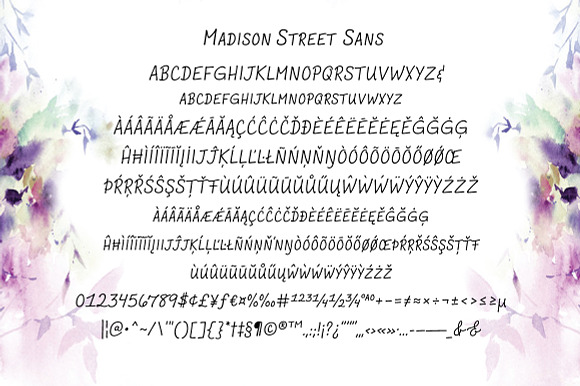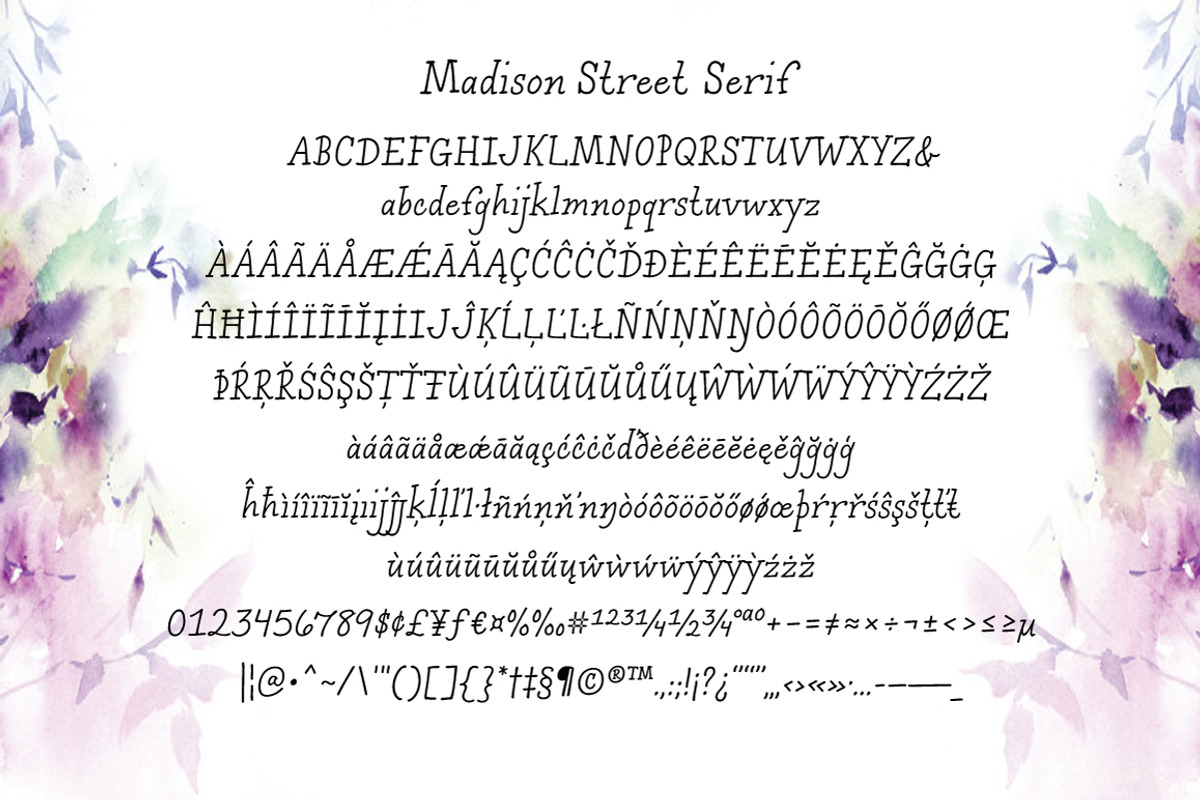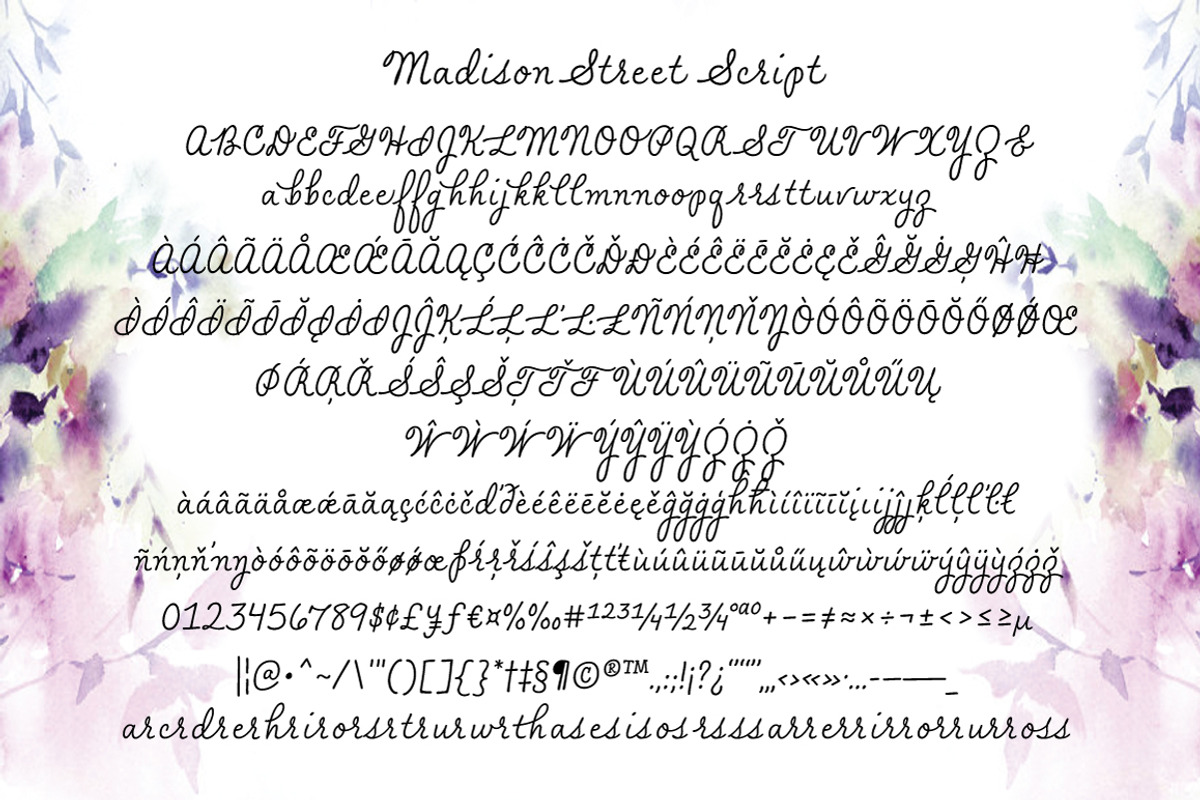
Madison Street Text Fonts
The Madison Street Text Fonts offer three companion text fonts for the Madison Street family of fonts. Each is a different take on Elaina DeBoard's hand printing style and pairs nicely with the Spencerian typefaces.
Madison Street Sans is a very friendly hand drawn sans serif. It features smallcaps instead of a traditional lowercase.
Madison Street Serif is a very casual, hand drawn, serif design, for a more formal, but relaxed text setting.
Madison Street Script is a non-connecting, hand drawn italic script, with plenty of casual and friendly shapes! There are a handful of ligatures and initial and final glyph forms to help alleviate those more difficult letter combinations.
Each of these companion text fonts can hold it's own when used for invitations, place cards and similar announcement material.
- It features smallcaps instead of a traditional lowercase.
- There are a handful of ligatures and initial and final glyph forms to help alleviate those more difficult letter combinations.
- Madison Street Sans
- Madison Street Script
- Madison Street Serif